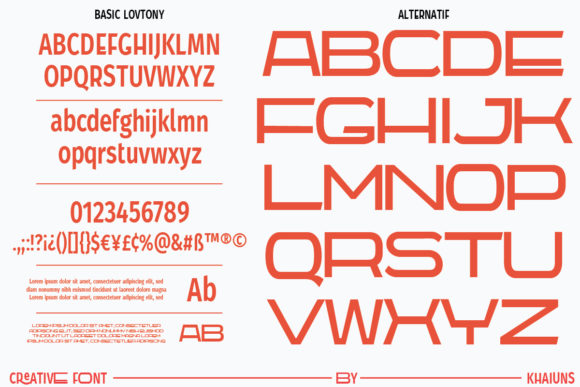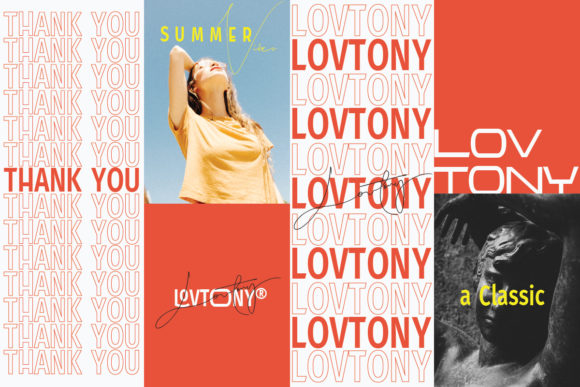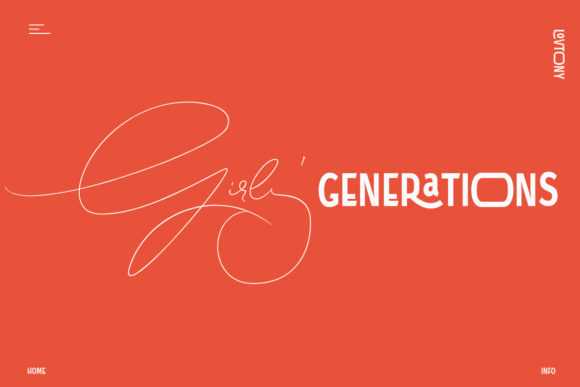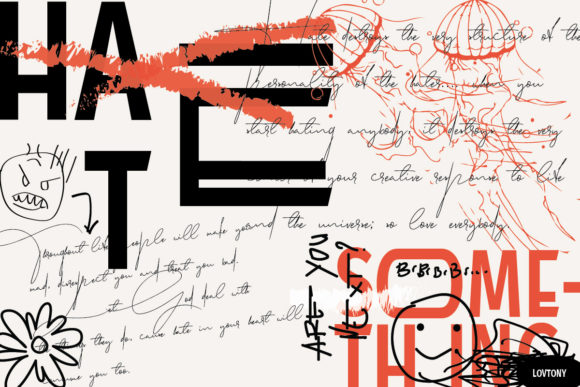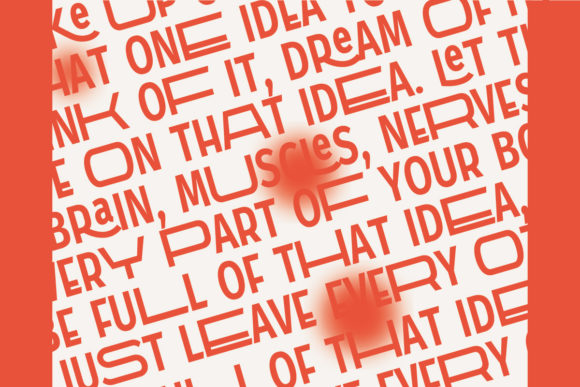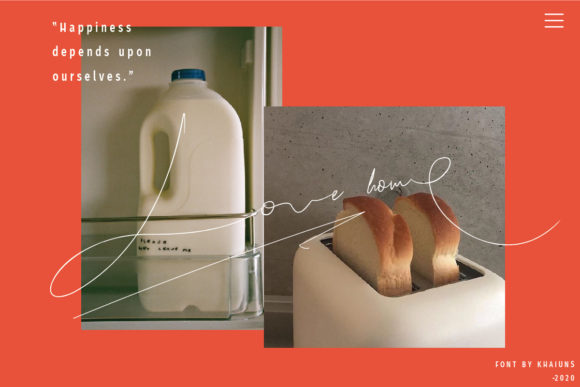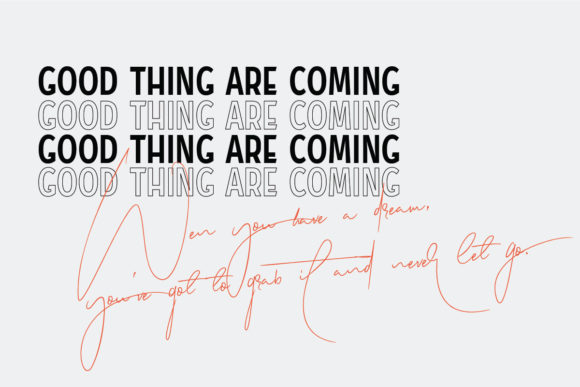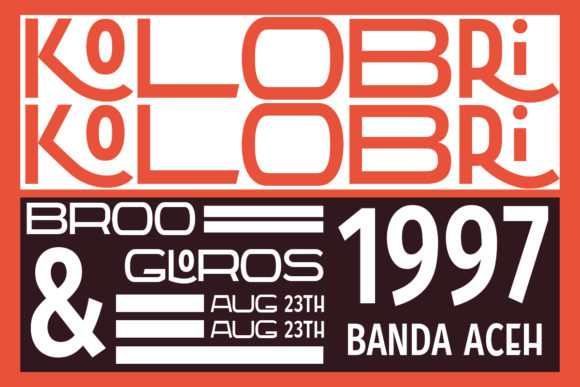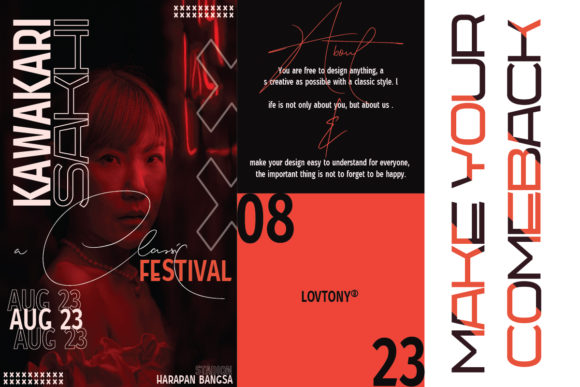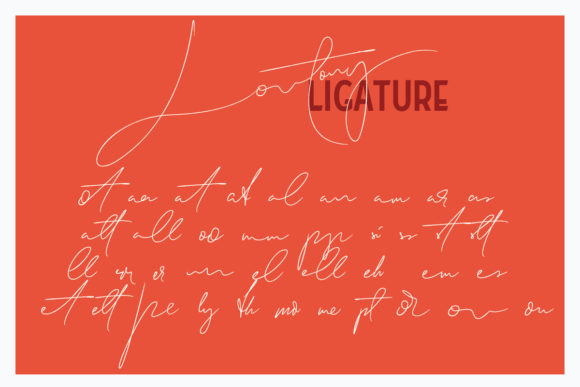
Lovtony Font
About Lovtony Font
Lovtony is a beautiful and incredibly unique duo font (display and handwritten). Both relaxed and adept, this font fits a wide variety of creations!